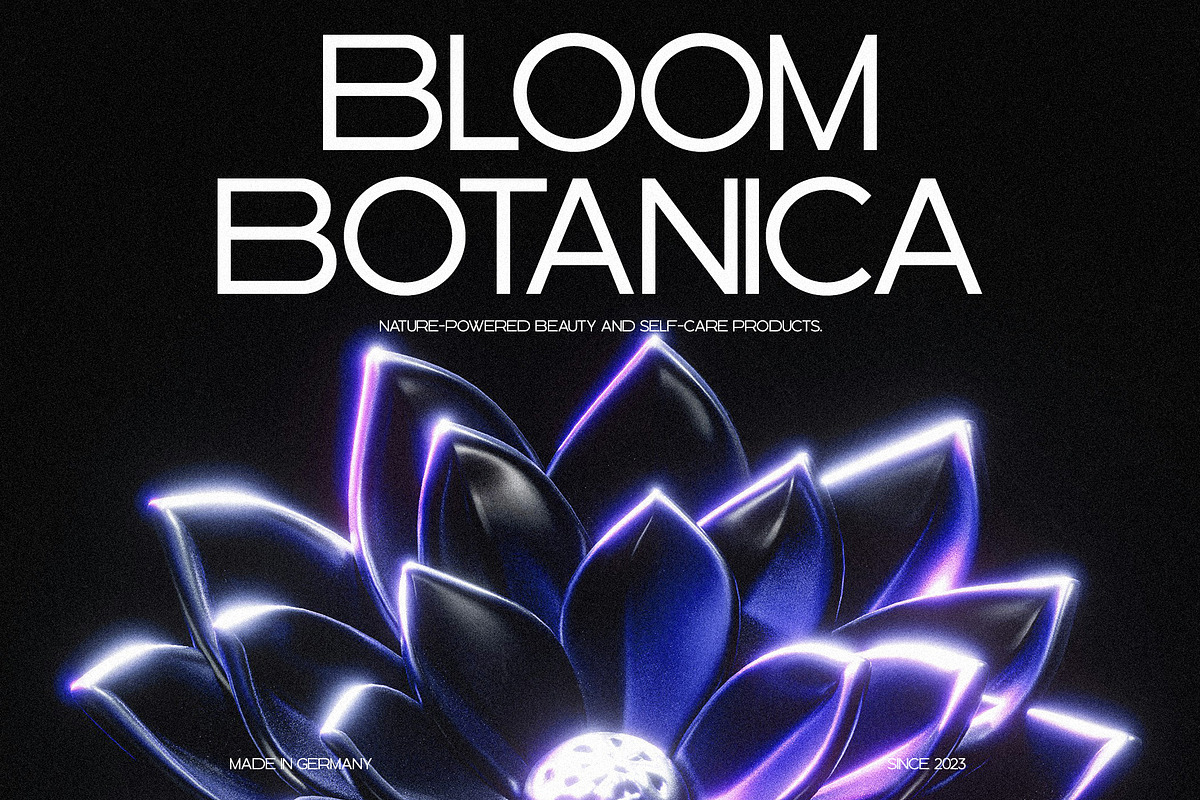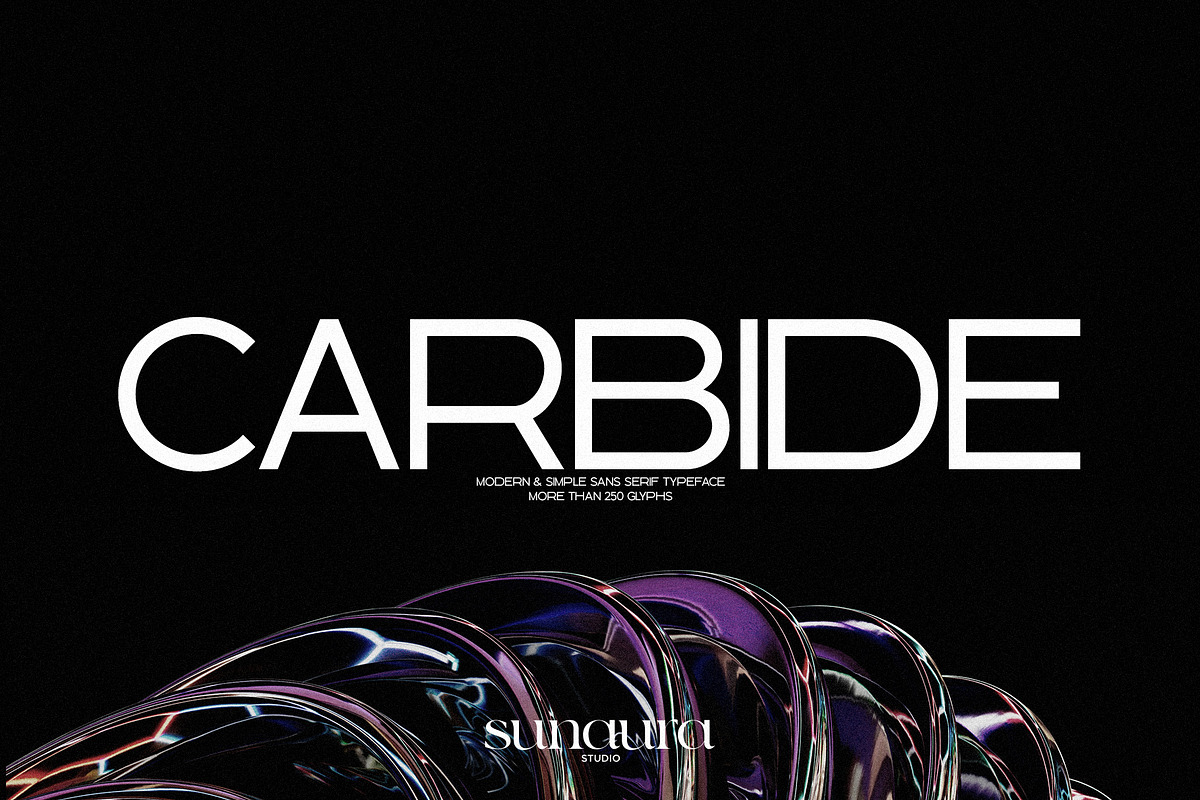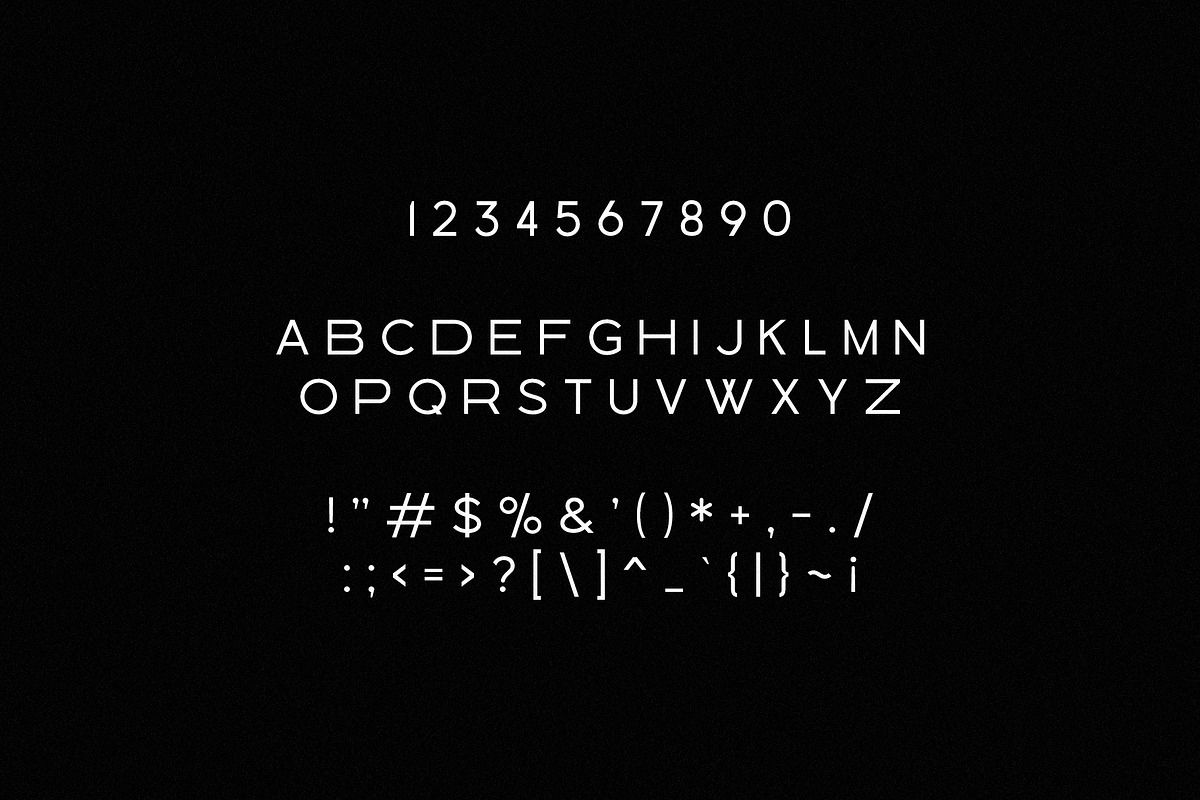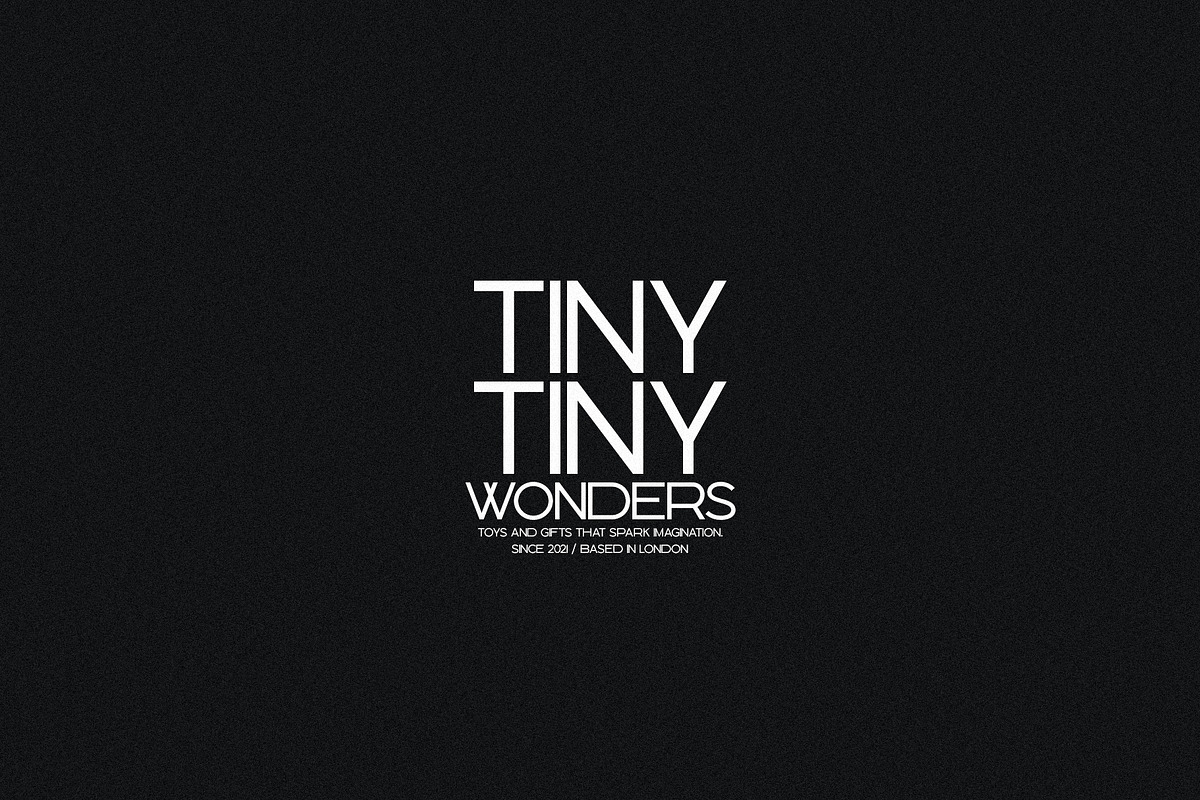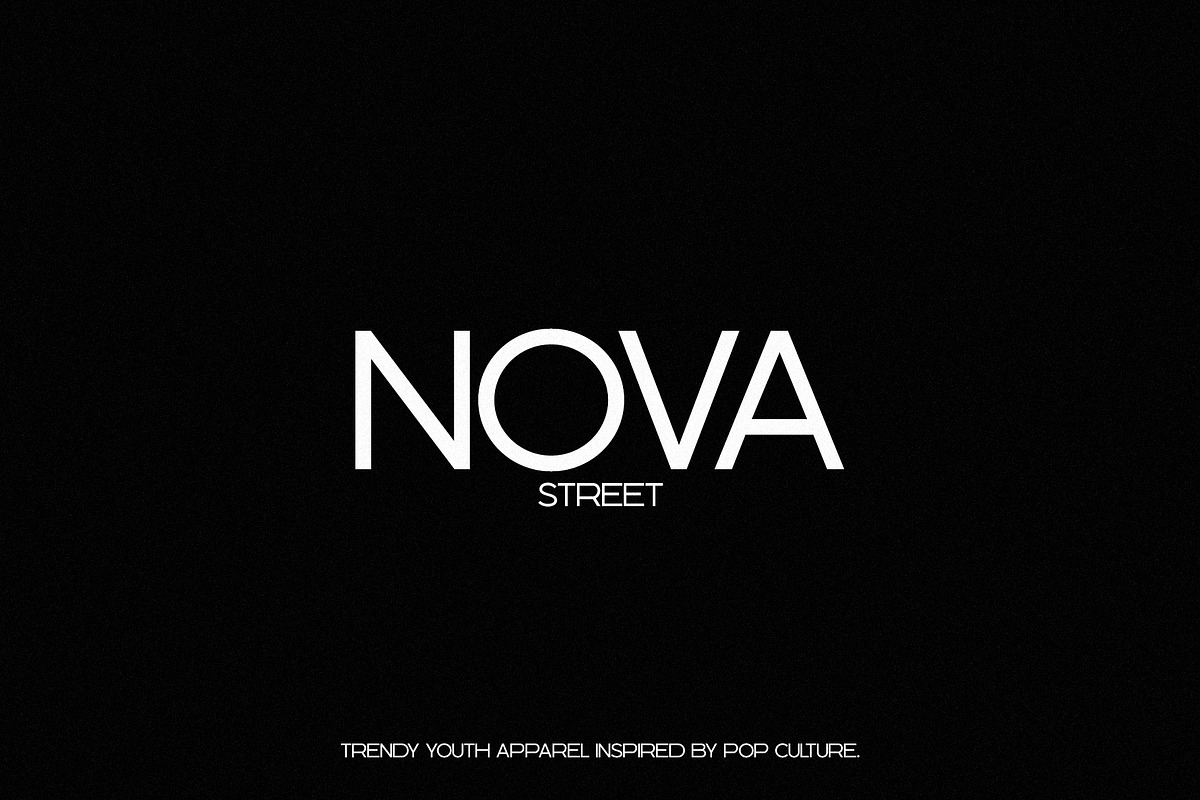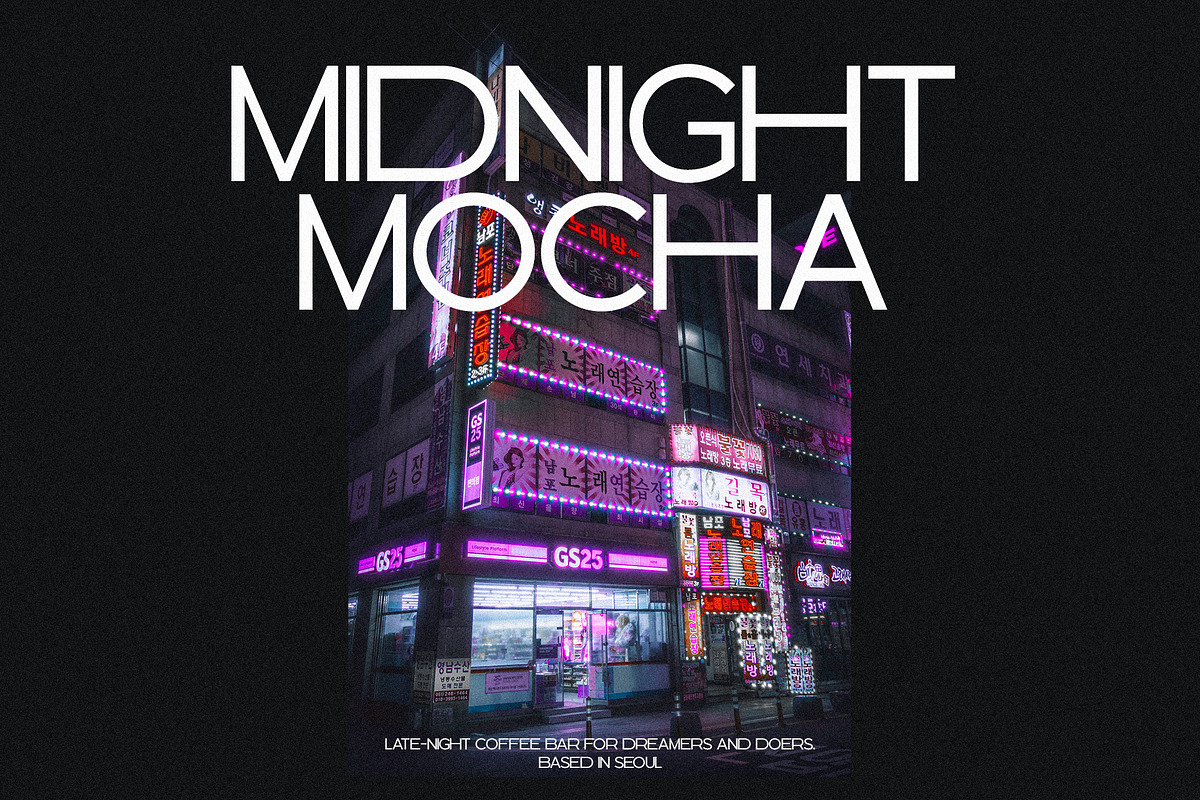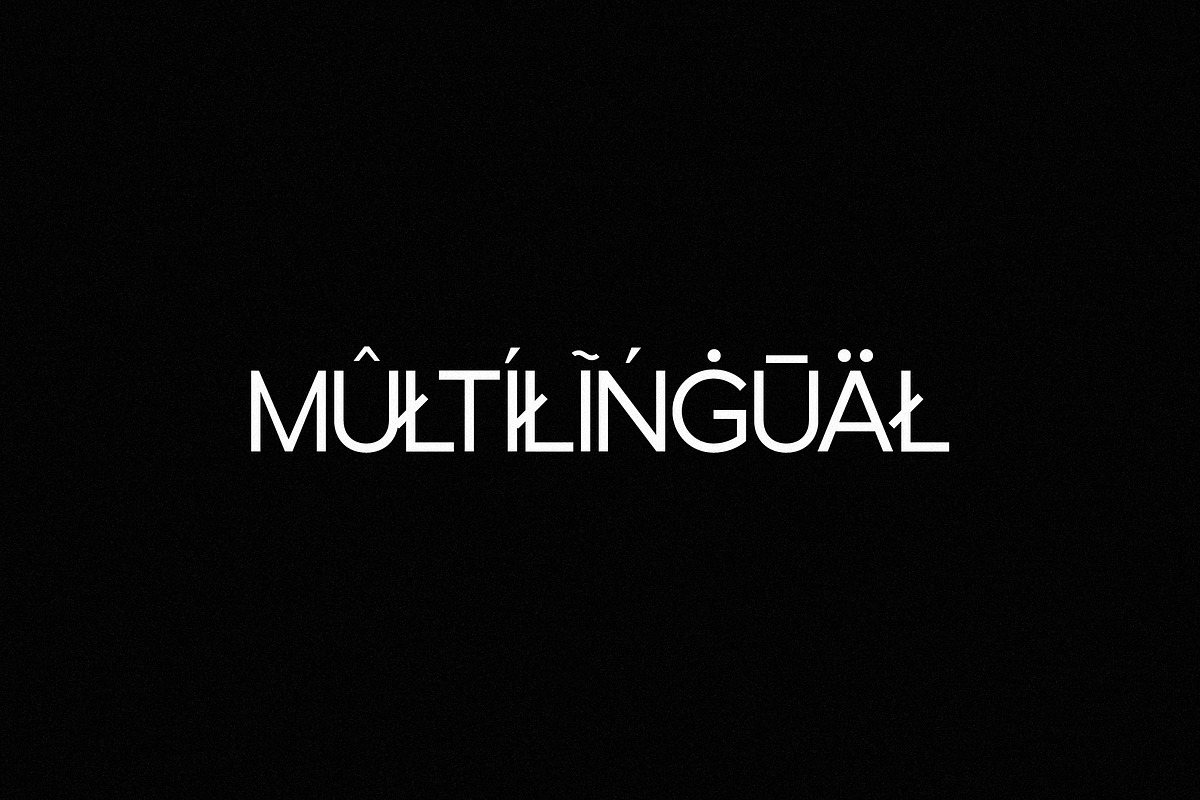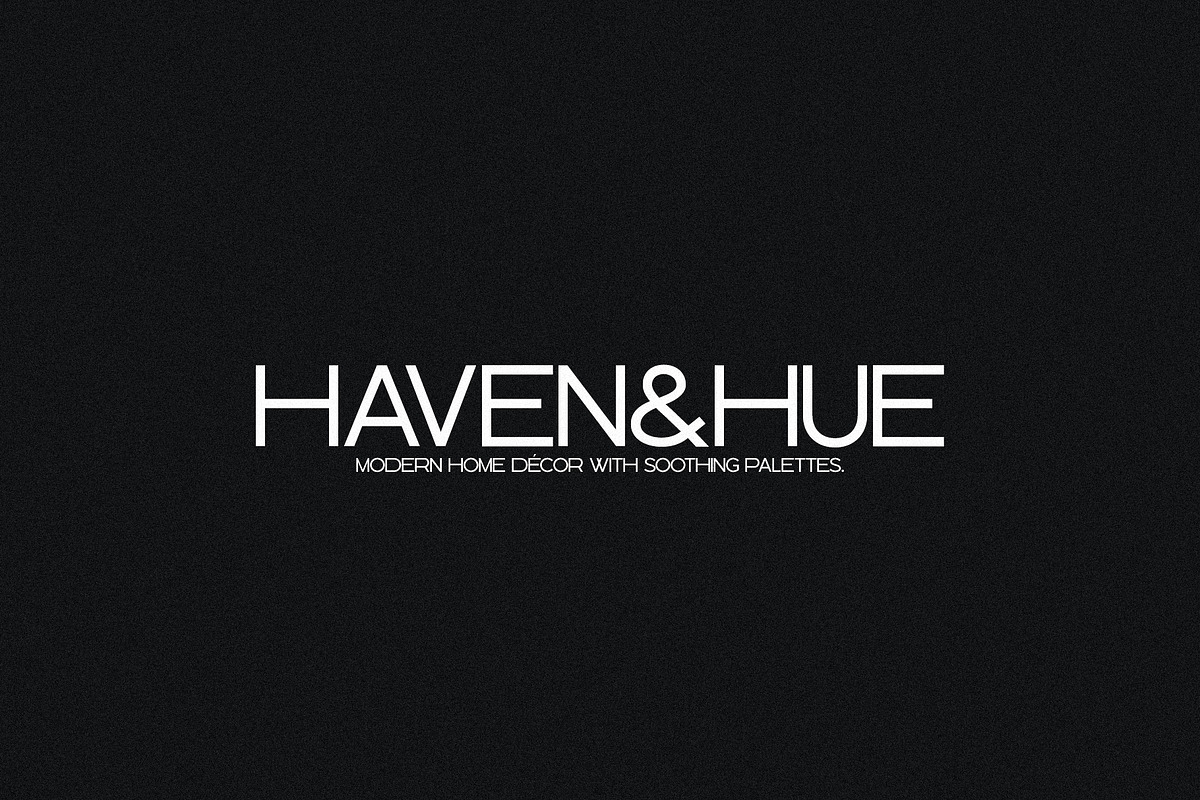
Carbide - Modern & Simple Sans Serif
Carbide is a modern and simple sans serif font that combines clean geometry with subtle elegance. Designed for versatility, it maintains a refined balance between minimalism and readability, making it ideal for branding, editorial design, logos, and digital interfaces. Its smooth curves and precise letterforms give every project a contemporary, confident look while keeping the focus on clarity and visual harmony. Whether used for bold headlines or clean body text, Carbide delivers a professional and timeless aesthetic.